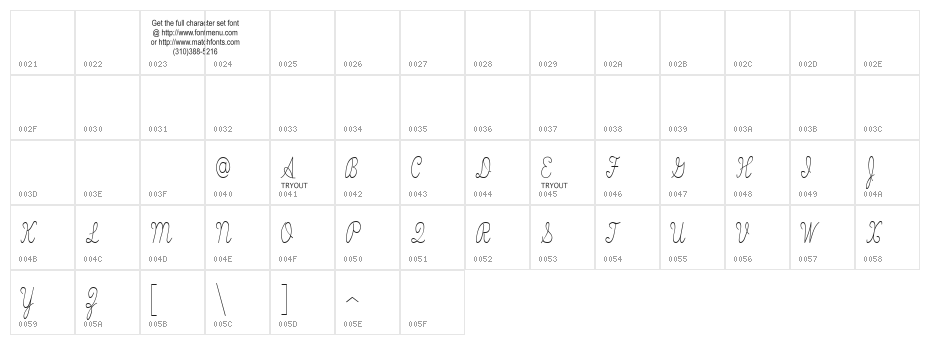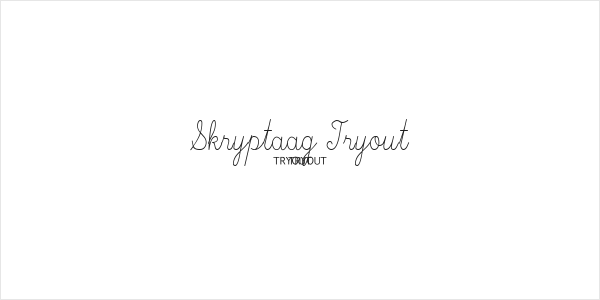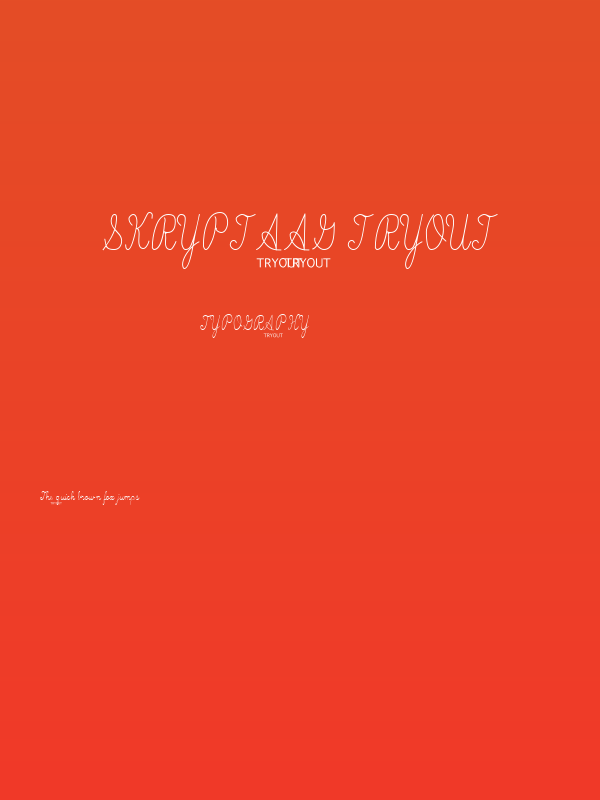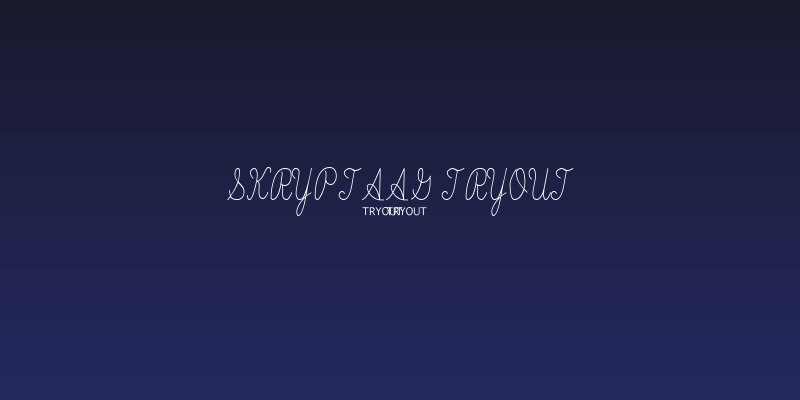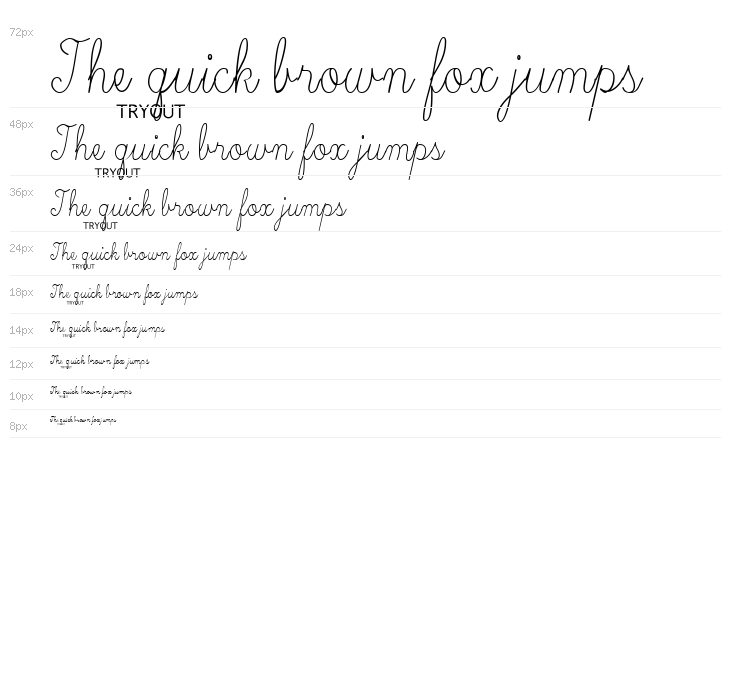
Skryptaag Tryout Font
✎ Calligraphic
| Gesamtstil | Elegant, Modern |
| Anwendungsfall | Logos, Invitations, Decorative text |
| Vorgeschlagene Projekte | Ideal for wedding invitations, elegant branding, greeting cards, and decorative projects. |